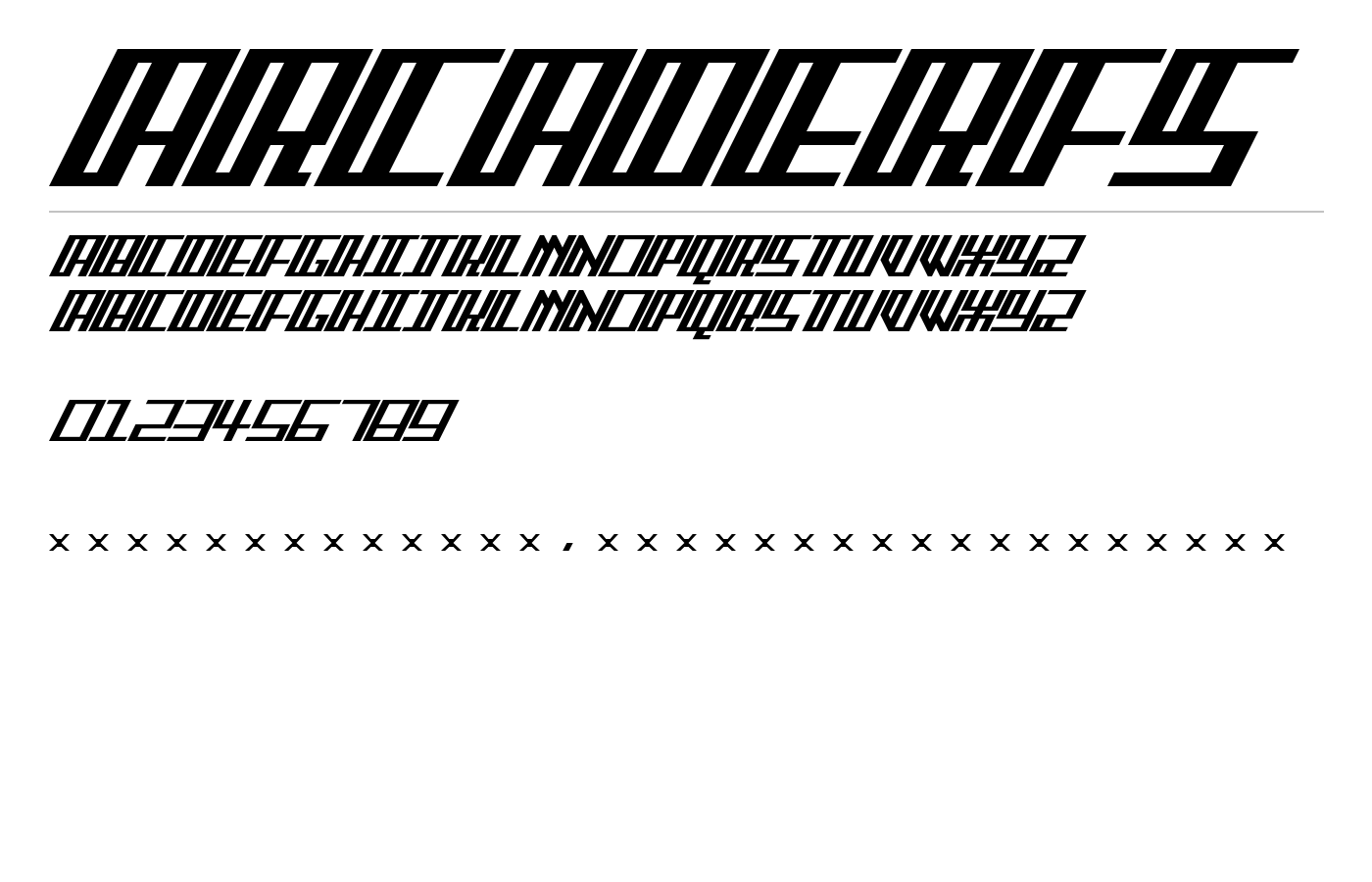
ArcaderFS is a bold, condensed sans serif font with a strong futuristic and techno vibe, characterized by sharp angles and a slanted italic style that suggests speed and dynamism. Its high contrast and geometric strokes create a striking, modern appearance perfect for eye-catching headlines, logos, and branding in gaming, tech, or digital industries. This font excels in display use where its unique, edgy personality can shine without sacrificing legibility at larger sizes.
ArcaderFS Font
About ArcaderFS Font